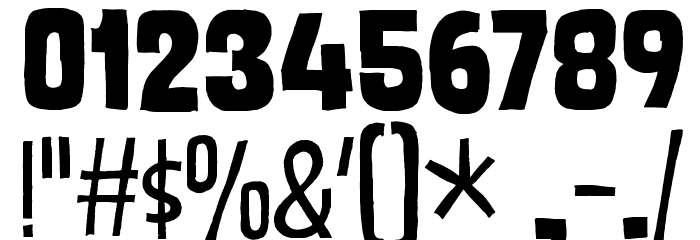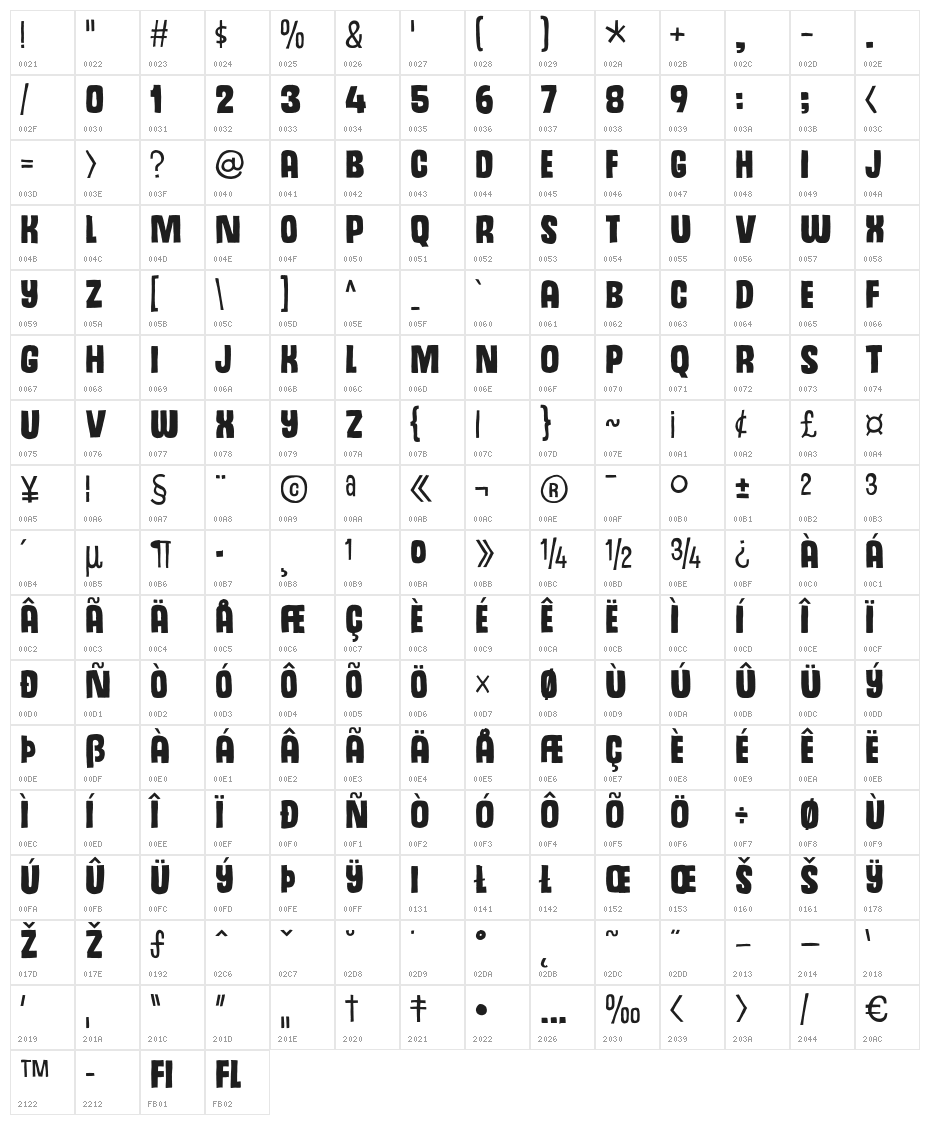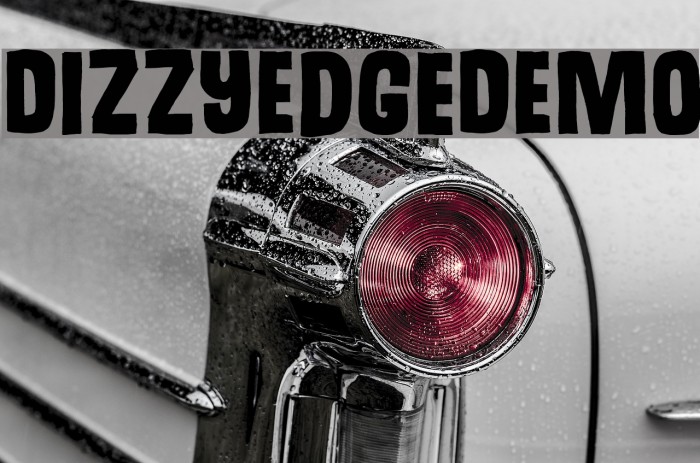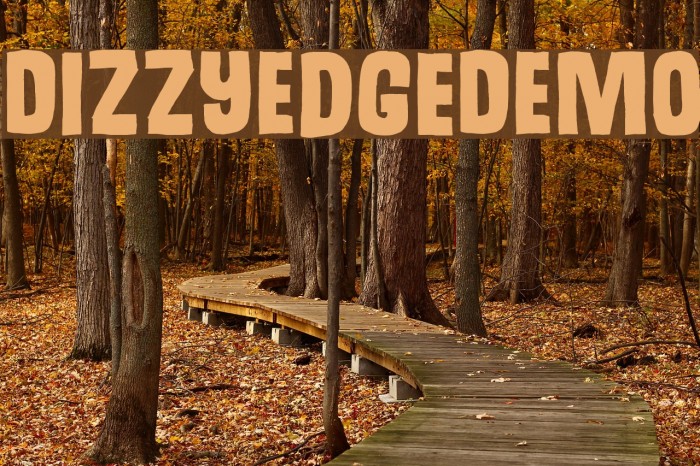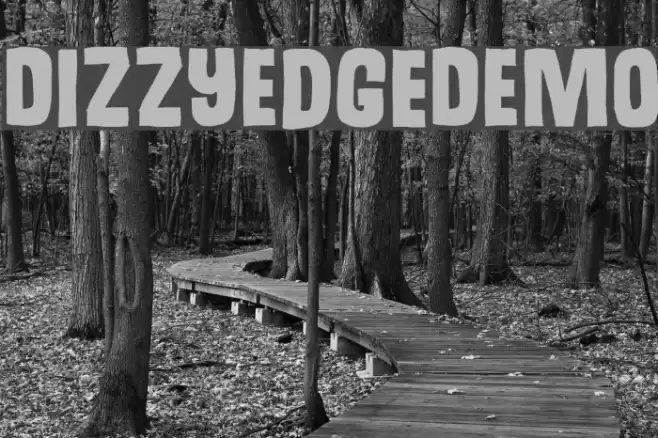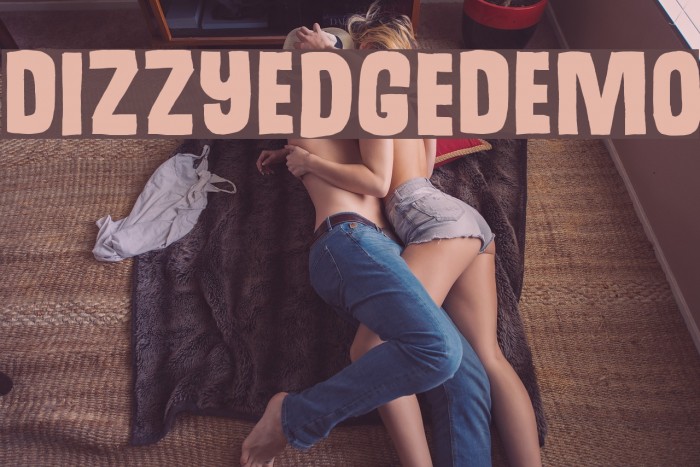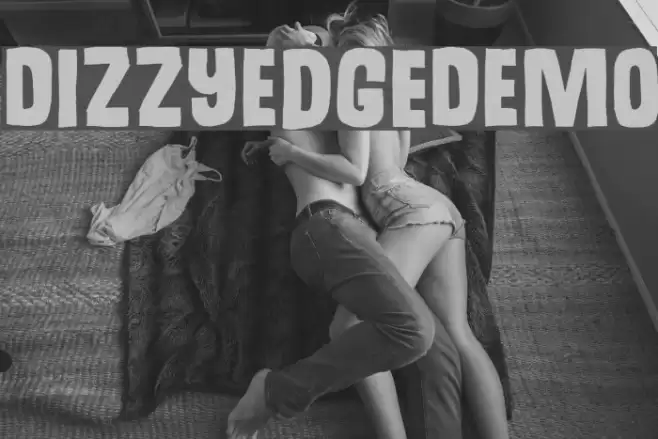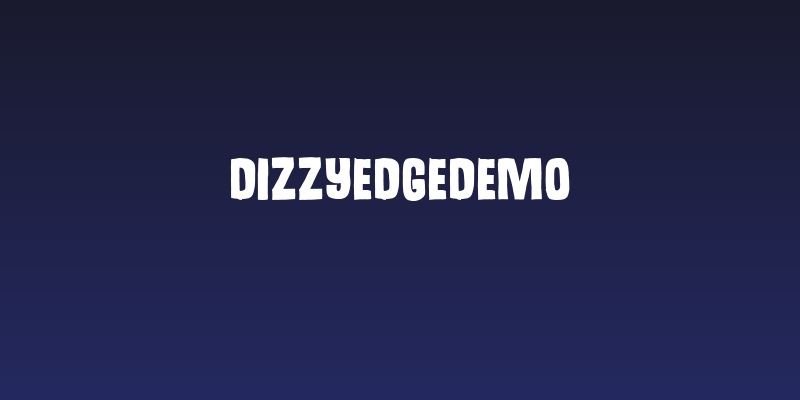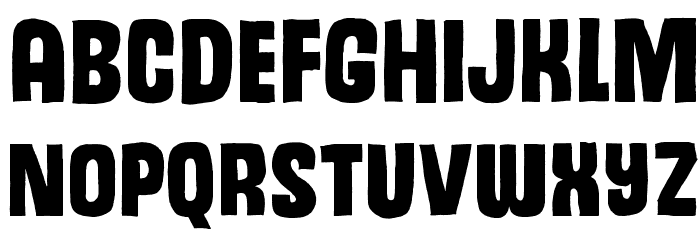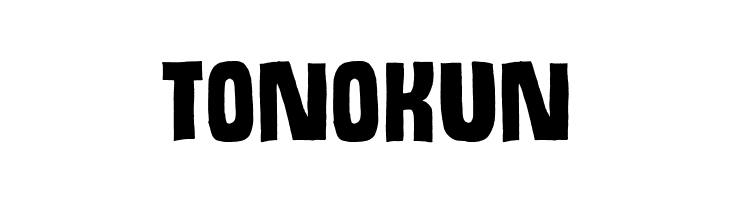
DizzyEdgeDEMO Font
DizzyEdgeDEMO Description
This font features a bold and rugged style with a slightly distressed appearance, giving it a hand-crafted feel. The characters are thick and blocky, with uneven edges that add a sense of dynamism and energy. The uppercase letters are prominent and commanding, while the lowercase letters maintain the same boldness, ensuring consistency across different text cases. The numerals are equally bold, matching the overall aesthetic of the alphabet characters. Special characters are included, maintaining the same bold and rough style, making this font versatile for various uses. Its unique style is perfect for projects that require a strong visual impact.
| Proposed Projects | Ideal for posters, logos, branding materials, and any design that requires a strong, impactful visual presence. |